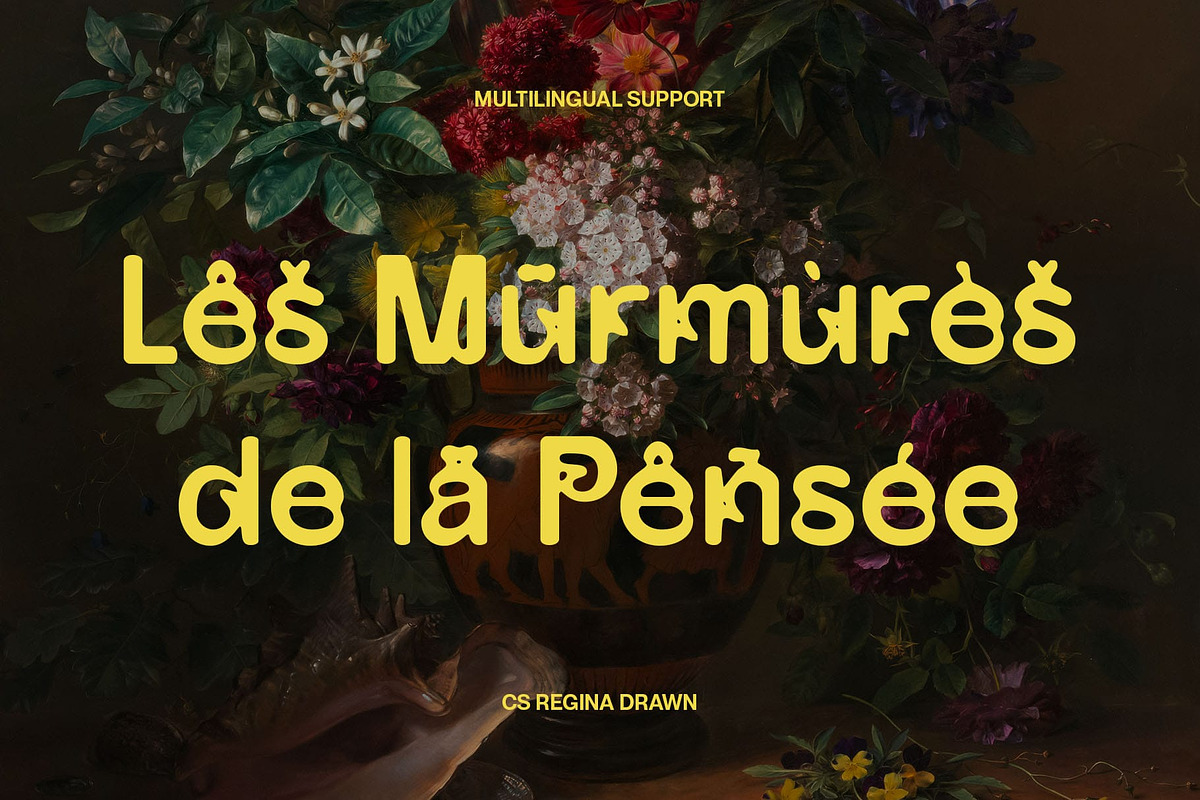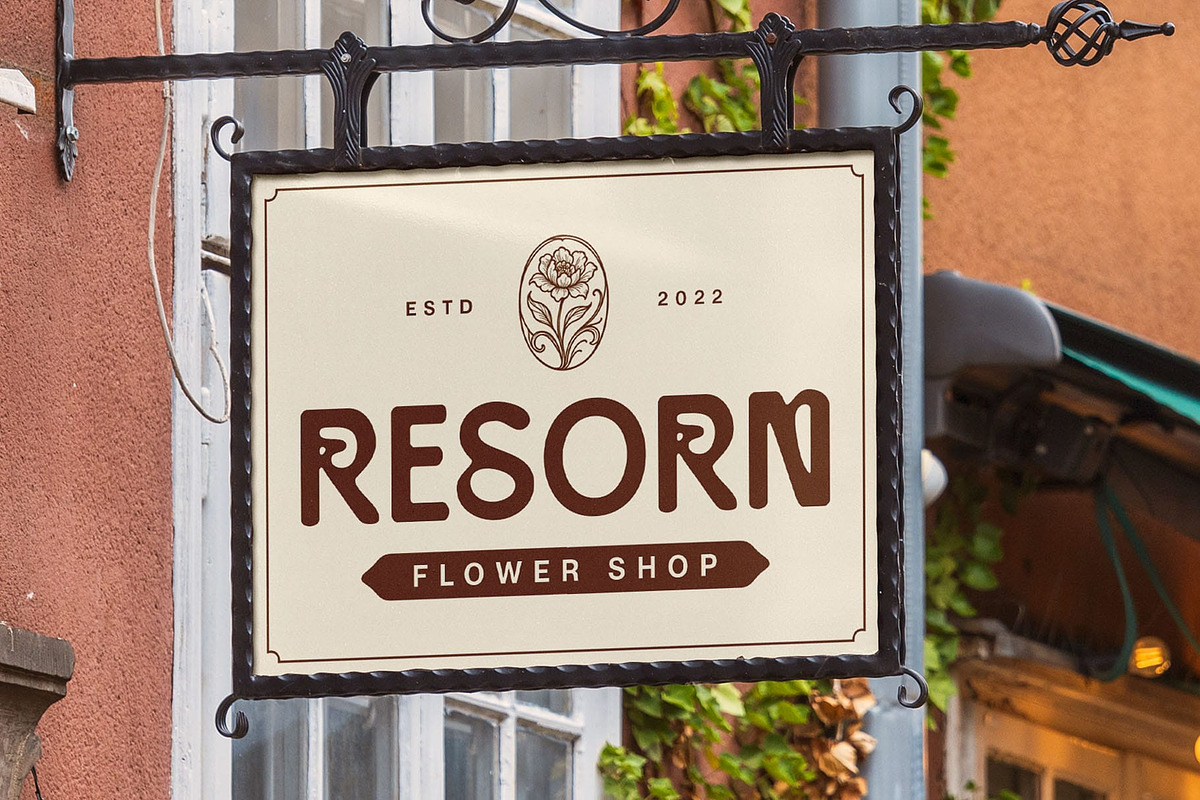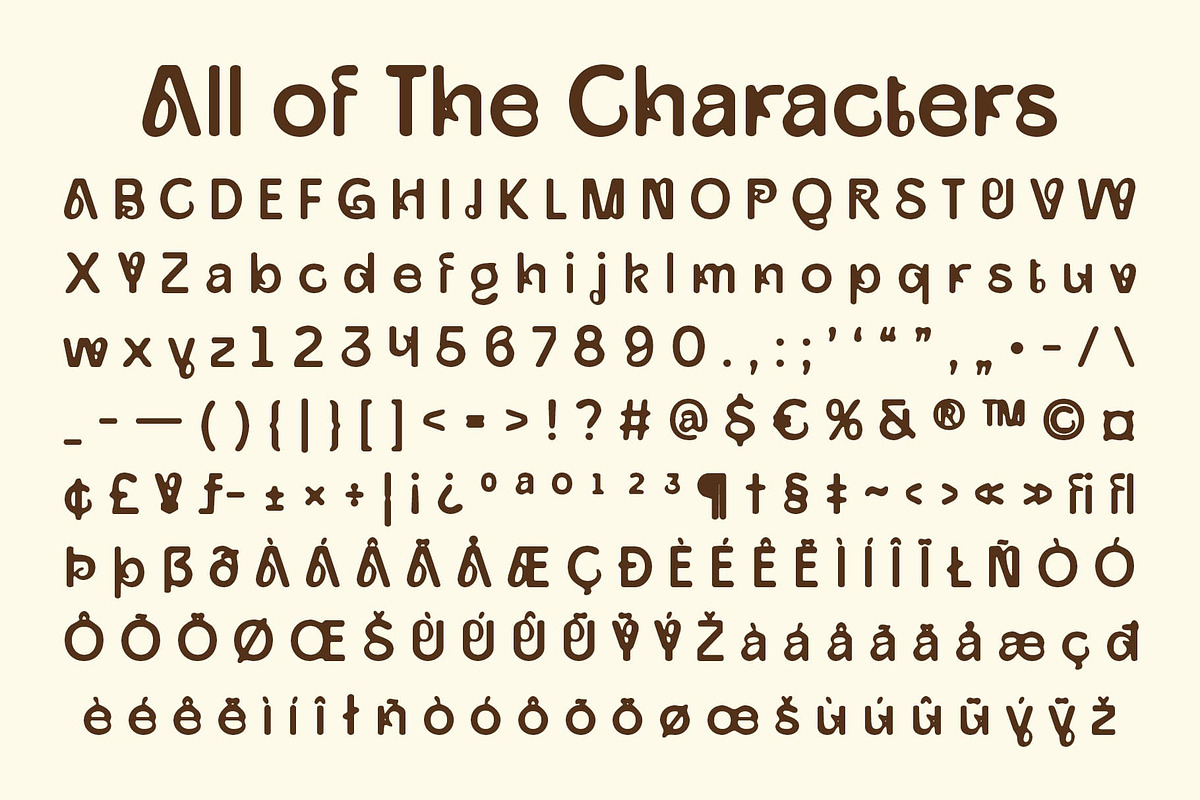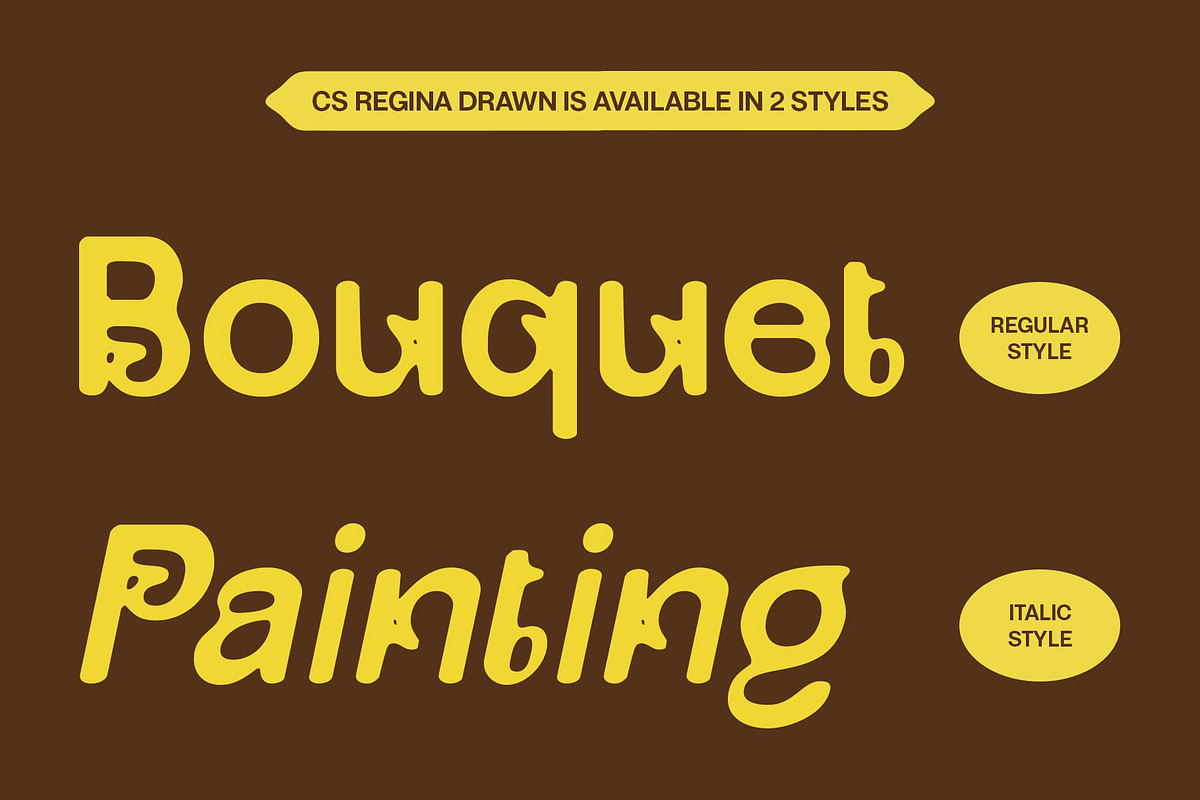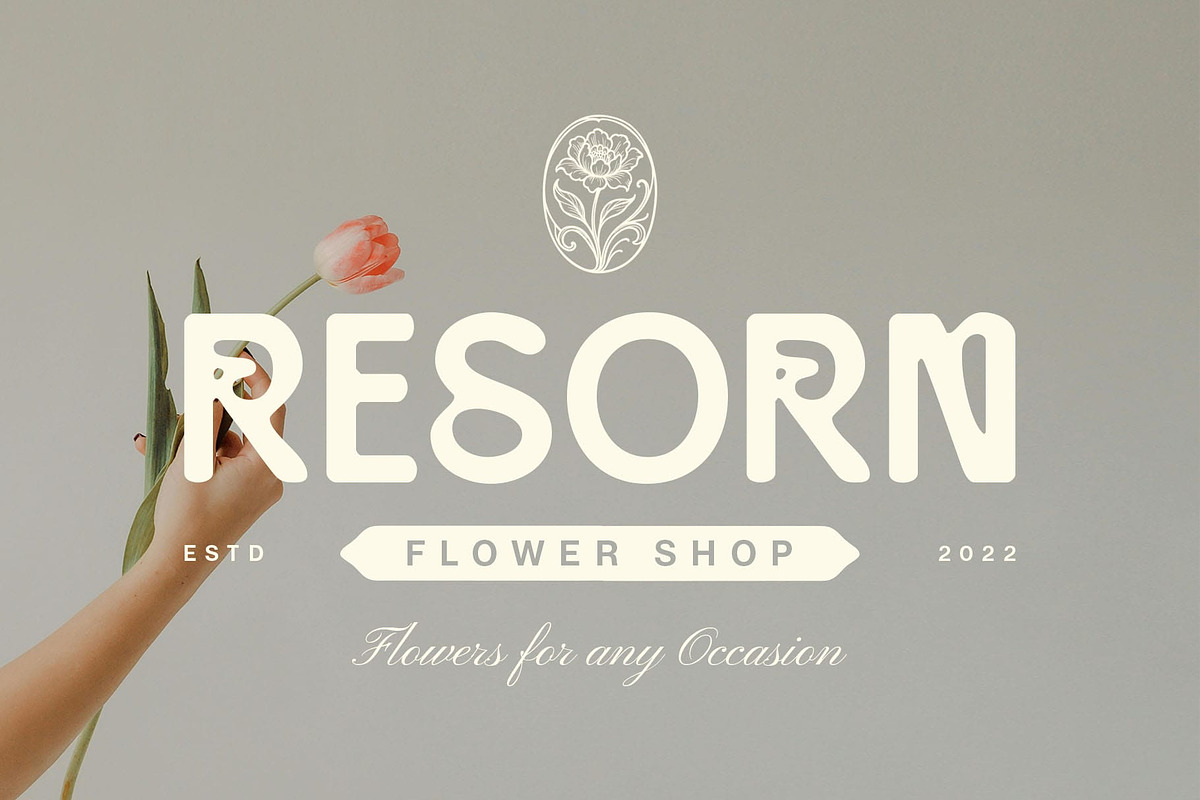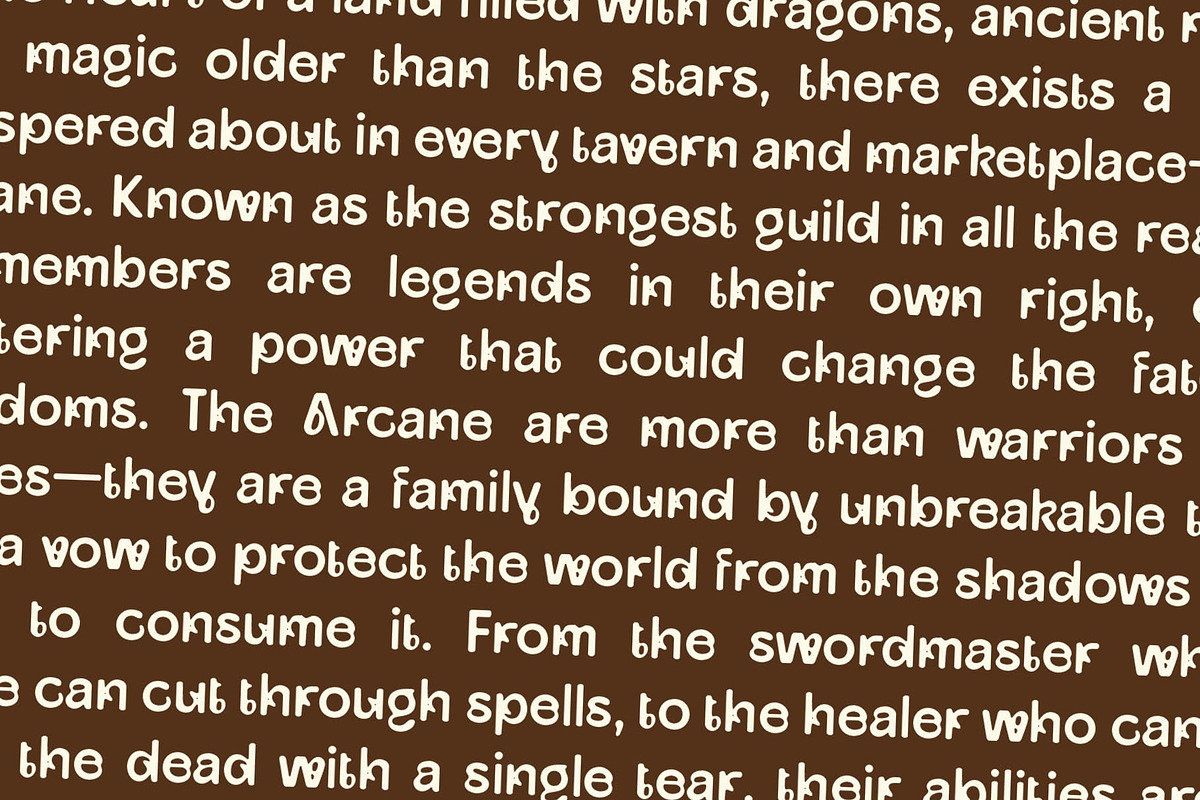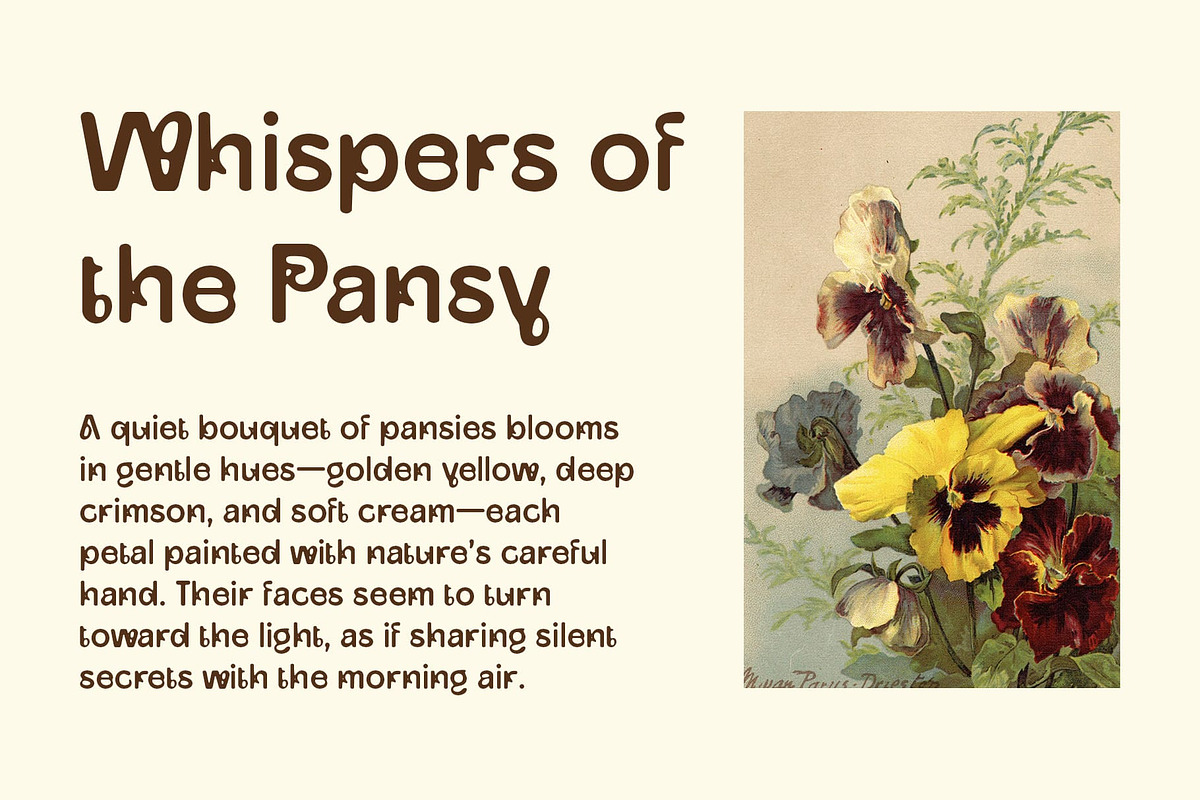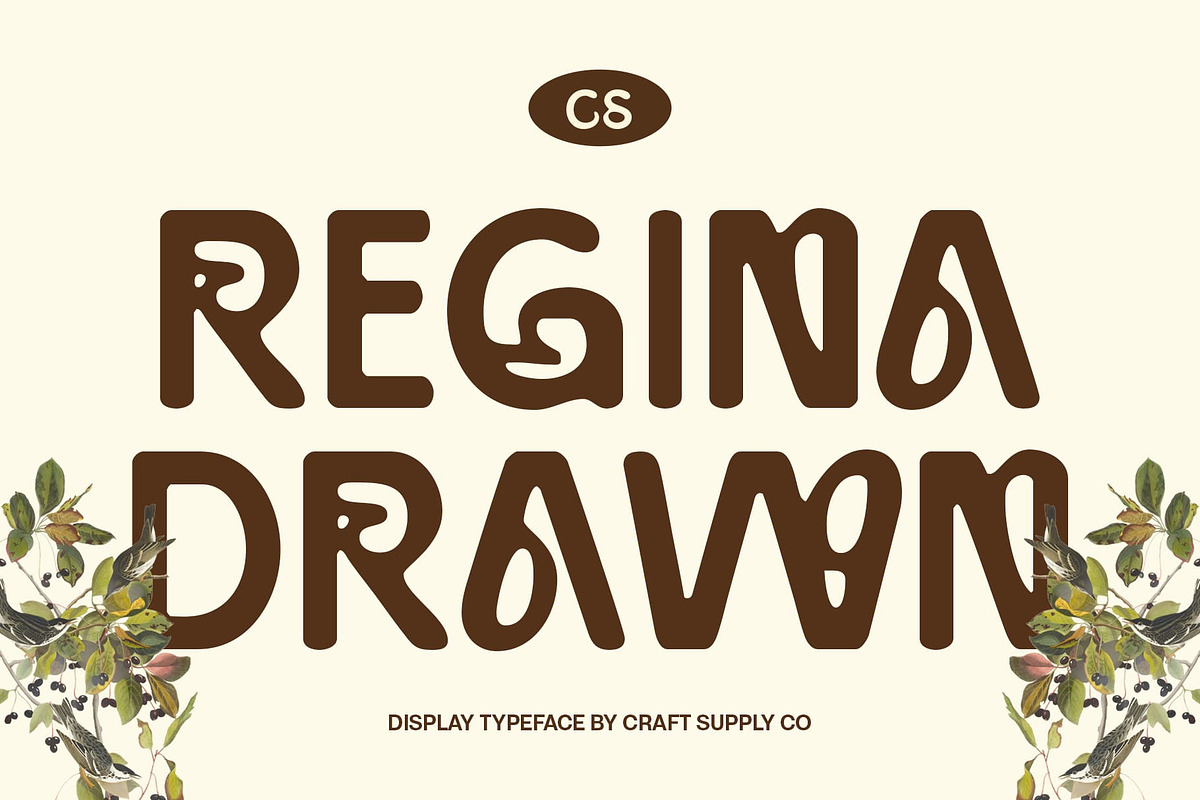
CS Regina Drawn
CS Regina Drawn: Modern Sans Serif with Art Nouveau Elegance
Modern Sans Serif Display Font with Drawn Effect CS Regina Drawn is a modern sans serif display font that combines clean, delicate lines with flowing Art Nouveau-inspired curves. Its contemporary structure exudes elegance and sophistication, while the subtle drawn effect adds a handmade, artistic texture that gives each character unique personality.
Handmade Texture for Expressive Detail The drawn detailing introduces a handcrafted quality, bringing depth and life to the typeface. Each letter feels expressive and captivating, transforming clean modern forms into visually engaging typography that balances precision with artistry.
Elegant Blend of Modernity and Classic Curves This refined and luxurious font perfectly harmonizes modern sans serif clarity with classic Art Nouveau elegance. The organic curves and refined proportions create a sophisticated aesthetic, making the font ideal for designs that seek both contemporary appeal and timeless beauty.
Versatile for Sophisticated Creative Projects Ideal for branding, posters, editorial layouts, or other creative projects, this artistic and handmade font adapts seamlessly to a variety of applications. Its combination of modern structure, organic curves, and handcrafted detail ensures your designs convey elegance, style, and sophistication. With graceful proportions, delicate lines, and artisanal touches, this unique and distinctive font delivers a typeface that is both visually captivating and highly versatile.